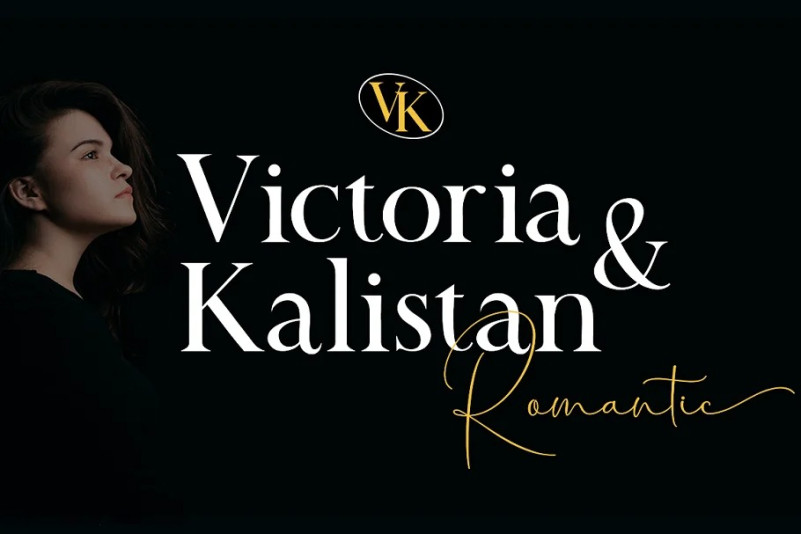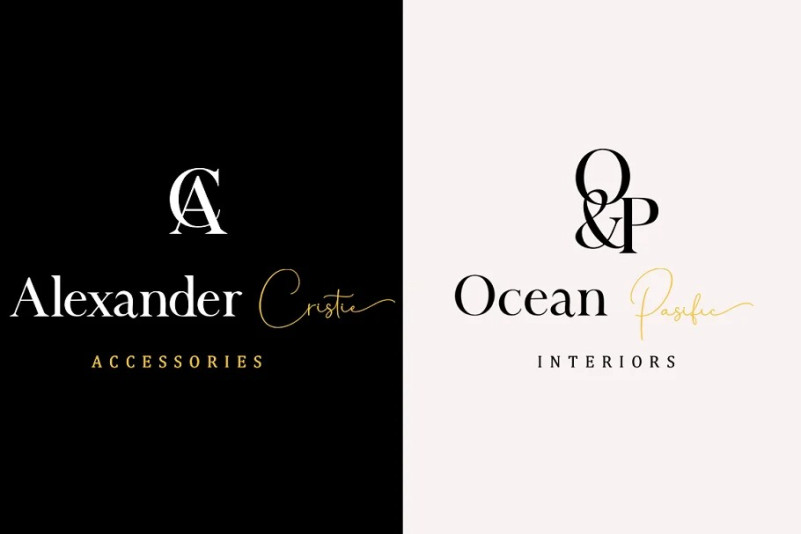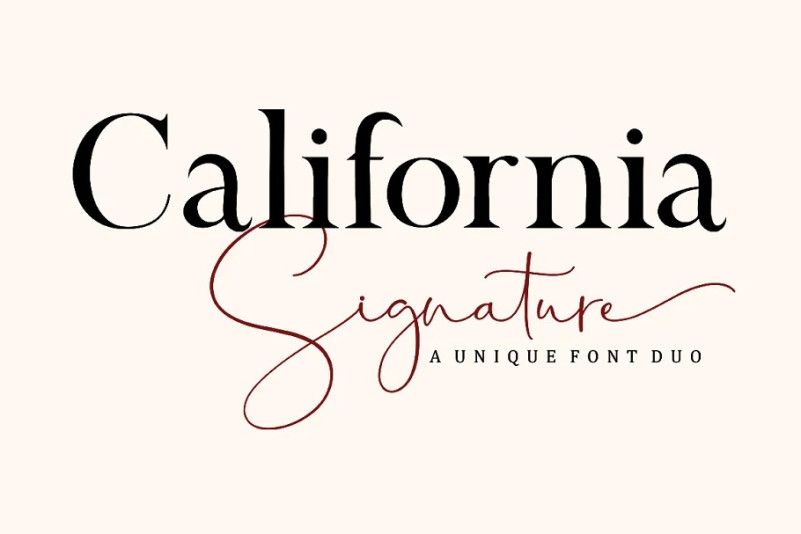
California Signature Font Duo
California Signature Font is the perfect blend of Luxury and Unique. California Signature is a set of seven modern fonts: upper and lowercase serifs and stylized script. The subtle curves of the serifs create a feminine feel. California Signature is perfect for logos, social media posts, invitations, and many other projects. It also comes with multilingual support.